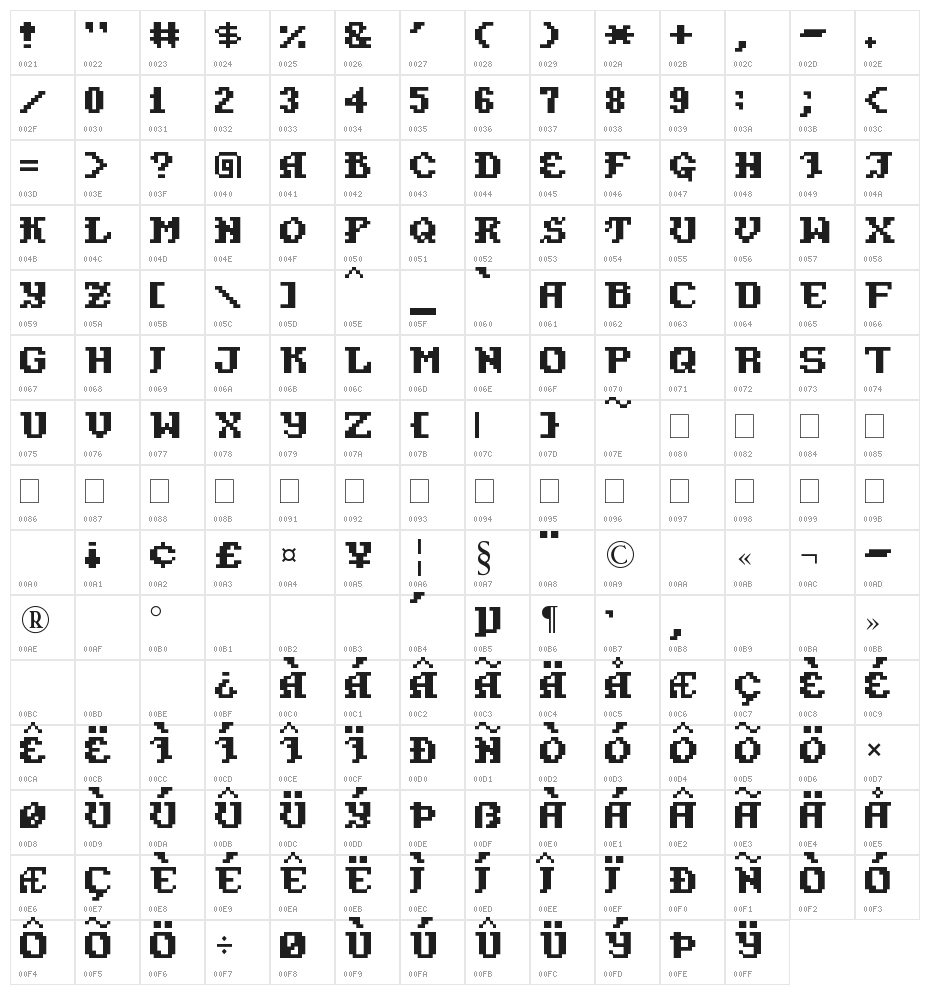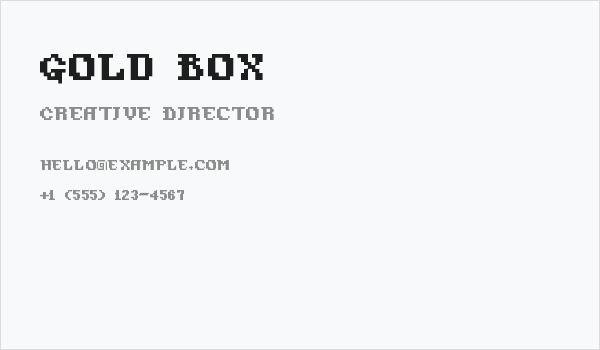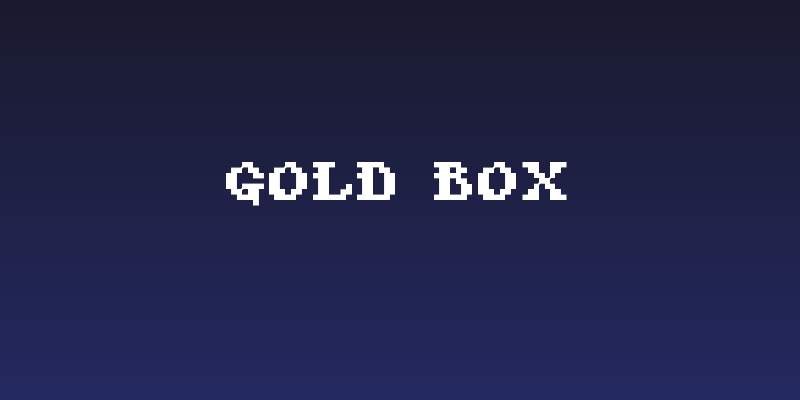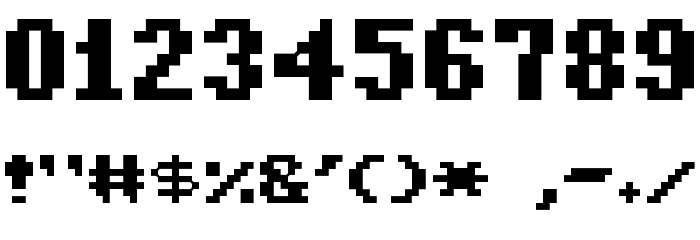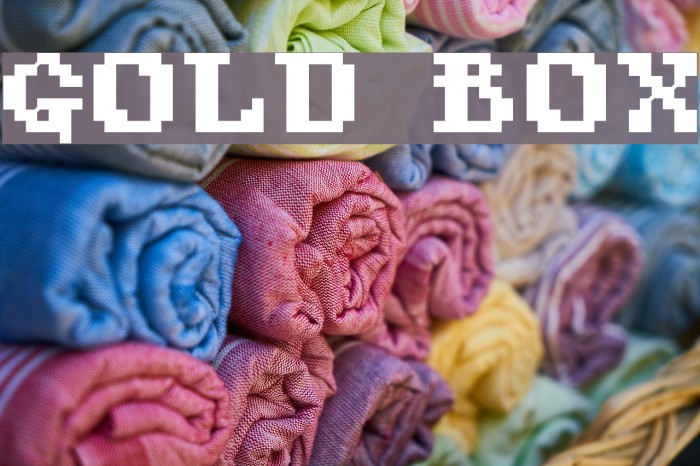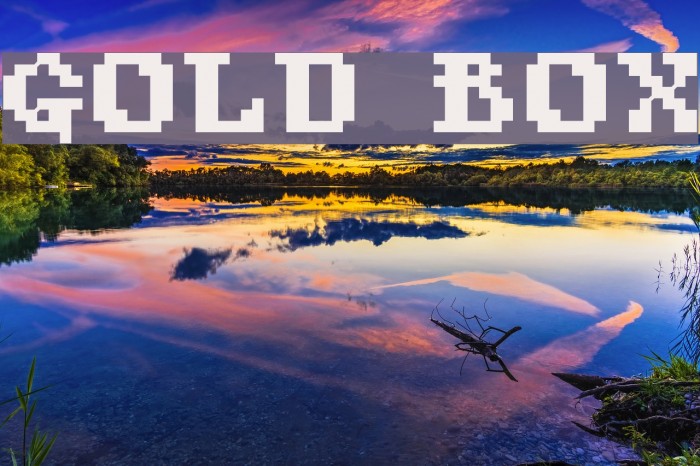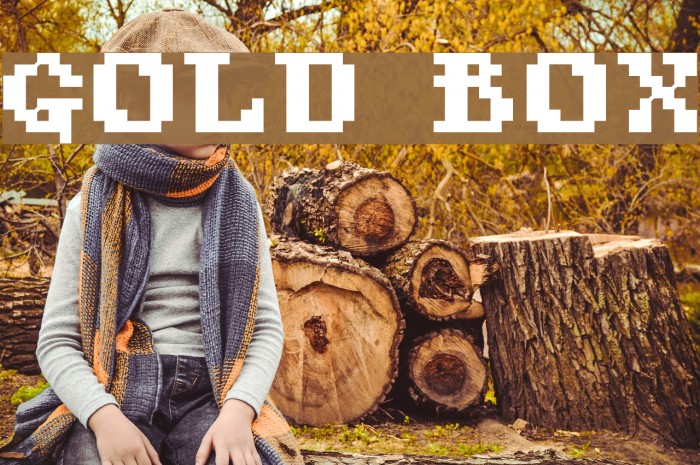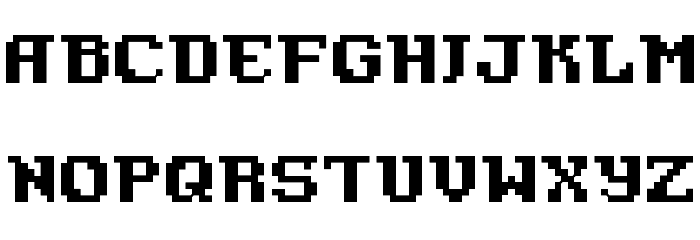
Gold Box Font
Gold Box Description
This font features a bold, pixelated design reminiscent of retro video game graphics. The characters are constructed with a blocky, grid-like structure, giving it a distinctly digital and nostalgic feel. The uppercase and lowercase letters maintain a consistent height, enhancing its uniform appearance. Numbers and special characters follow the same pixelated style, ensuring visual coherence across all glyphs. The font's geometric precision and lack of curves contribute to its unique, eye-catching aesthetic, making it ideal for projects that aim to evoke a sense of nostalgia or digital culture.
GOLD-BOX UPPERCASE
GOLD-BOX LOWERCASE
GOLD-BOX OTHER CHARS